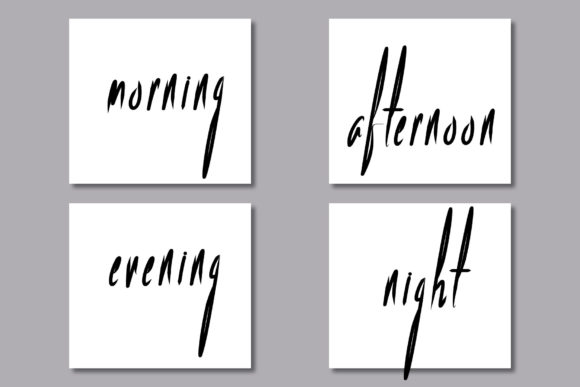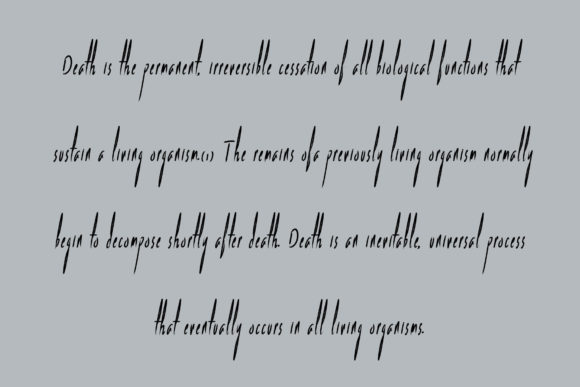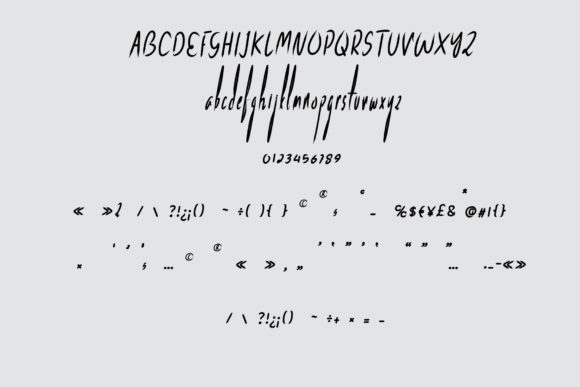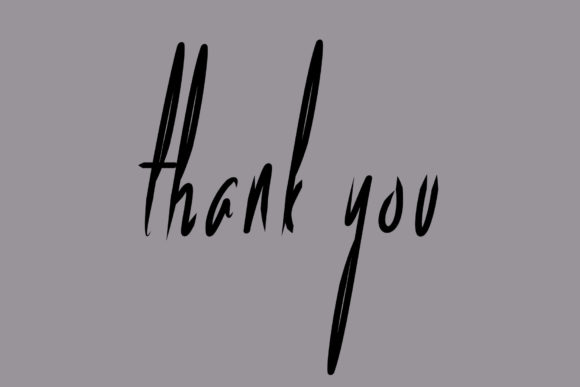
Bulletin Font: Elevate Your Designs with Elegance and Sophistication
Are you a designer or crafter looking for a font that exudes elegance and sophistication? Look no further than the Bulletin Font. This tall, thin, and cursive script font is perfect for a wide range of applications, from logos and wedding invitations to headings, t-shirts, and more.
What is Bulletin Font?
Bulletin Font is a beautiful, hand-crafted font that features a unique blend of classic and modern elements. Its tall, slender lines and cursive script style make it perfect for adding a touch of elegance and sophistication to any design. Whether you’re working on a logo, invitation, or signage, Bulletin Font is sure to make a lasting impression.
Uses for Bulletin Font
One of the best things about Bulletin Font is its versatility. It can be used for a wide range of purposes, including:
• Logos: Create a stunning logo for your business or brand with Bulletin Font. Its elegant and sophisticated style makes it perfect for companies that want to convey a sense of luxury and refinement.
• Wedding Invitations: Make your wedding invitations truly special with Bulletin Font. Its cursive script style and romantic feel make it perfect for wedding announcements, save-the-date cards, and more.
• Headings: Add a touch of elegance to your headings and titles with Bulletin Font. Its tall, thin lines make it perfect for creating eye-catching headlines and subheadings.
• T-Shirts: Create custom t-shirts with Bulletin Font that’s sure to turn heads. Its bold, cursive style makes it perfect for designing eye-catching apparel.
• Letterhead: Elevate your business correspondence with Bulletin Font. Its professional and sophisticated style makes it perfect for creating custom letterhead and stationery.
• Signage: Make your signage stand out with Bulletin Font. Its tall, thin lines and cursive script style make it perfect for creating eye-catching signs and banners.
• Labels: Create custom labels with Bulletin Font that’s sure to add a touch of elegance to any product or packaging.
• News: Use Bulletin Font to create stunning newspaper-style designs, including headlines, articles, and more.
• Posters: Create eye-catching posters with Bulletin Font that’s sure to grab attention. Its bold, cursive style makes it perfect for designing posters for events, promotions, and more.
• Badges: Design custom badges with Bulletin Font that’s sure to add a touch of sophistication and elegance.
Why Choose Bulletin Font?
So why choose Bulletin Font for your next design project? Here are just a few reasons:
• Elegance and Sophistication: Bulletin Font exudes elegance and sophistication, making it perfect for designs that require a touch of luxury and refinement.
• Versatility: Bulletin Font can be used for a wide range of purposes, from logos and wedding invitations to headings and signage.
• Easy to Read: Despite its thin lines, Bulletin Font is surprisingly easy to read, making it perfect for designs that require a clear and legible font.
• Unique and Eye-Catching: Bulletin Font is a unique and eye-catching font that’s sure to make your designs stand out from the crowd.
Tips for Using Bulletin Font
Here are a few tips for using Bulletin Font in your designs:
• Use it sparingly: Bulletin Font is a bold and eye-catching font, so use it sparingly to avoid overwhelming your design.
• Pair it with a sans-serif font: Pairing Bulletin Font with a sans-serif font can create a beautiful and elegant contrast.
• Experiment with colors: Bulletin Font looks great in a variety of colors, so don’t be afraid to experiment and find the perfect hue for your design.
In conclusion, Bulletin Font is a beautiful and versatile font that’s perfect for designers and crafters looking to add a touch of elegance and sophistication to their designs. Its tall, thin lines and cursive script style make it perfect for a wide range of applications, from logos and wedding invitations to headings and signage. So why not give it a try and see the difference it can make in your designs?